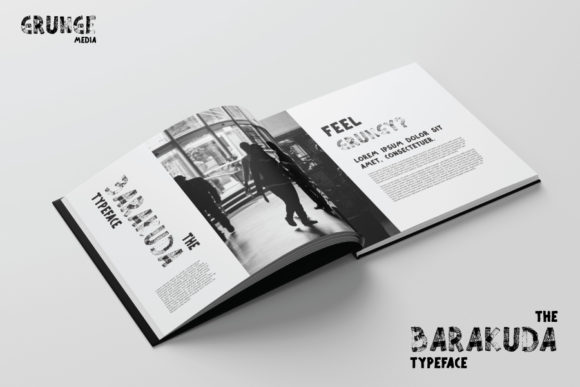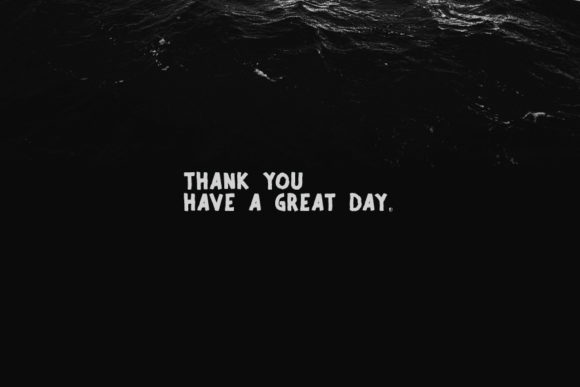
The Designer’s Delight: Unleashing the Power of Barakuda Font
I’ll never forget the time I was working on a project for a client who wanted a bold, eye-catching font to capture the essence of their brand. I scoured the internet, tried out countless fonts, but nothing seemed quite right. That was until I stumbled upon Barakuda Font. This bold, handmade display font has been a game-changer for me, and I’m excited to share its awesomeness with you! 😊
What I Love About Barakuda Font
• Unique Character: Barakuda Font has a distinct, handmade feel that sets it apart from other bold fonts.
• Versatility: It’s perfect for a wide range of design projects, from posters and logos to social media graphics and more.
• 💥 Impactful: The font’s boldness ensures your message gets noticed, making it ideal for headlines, titles, and emphasis.
While Barakuda Font is amazing, it’s not without its quirks. For instance:
• 🤔 Legibility at Small Sizes: Like many bold fonts, Barakuda can get a bit tricky to read at very small sizes. It’s best used for headlines or larger text.
• ⚠️ Limited Use in Body Text: Due to its bold nature, Barakuda isn’t the best choice for lengthy body text. Stick to using it for emphasis or titles.
Barakuda Font was created with the intention of providing a bold, yet personal touch to designs. Inspired by the ocean’s powerful predator, the barracuda, the font embodies strength and uniqueness. The designer aimed to craft a font that would make a statement, while still being approachable and creative.
Q: What makes Barakuda Font unique?
A: Barakuda Font’s uniqueness lies in its bold, handmade display style that adds a personal touch to any design.
Q: Is Barakuda Font suitable for body text?
A: Due to its bold nature, Barakuda Font is best used for headlines, titles, or emphasis rather than lengthy body text.